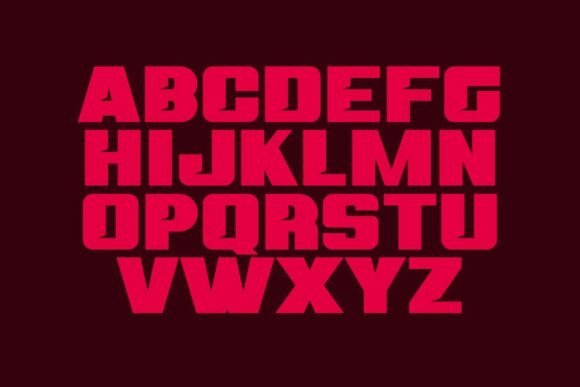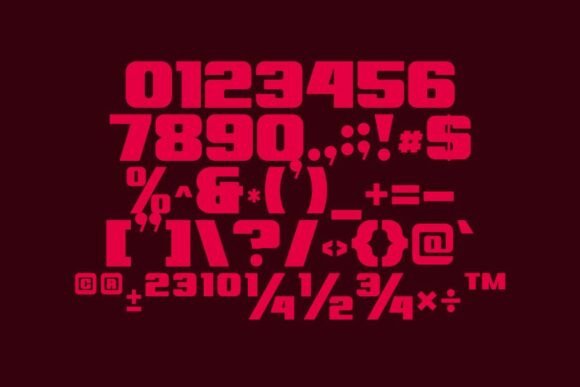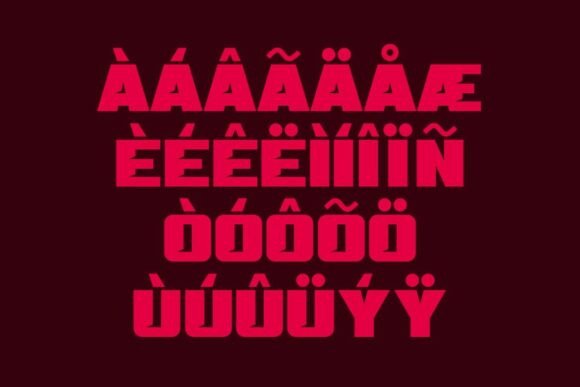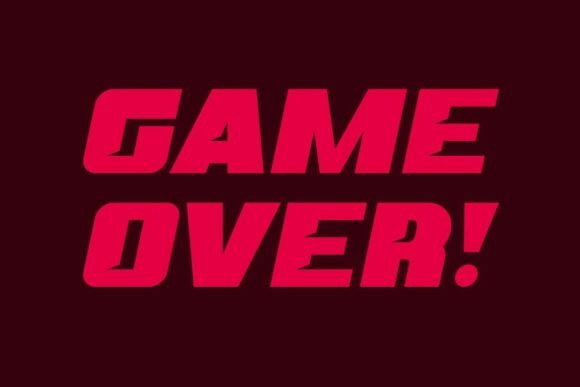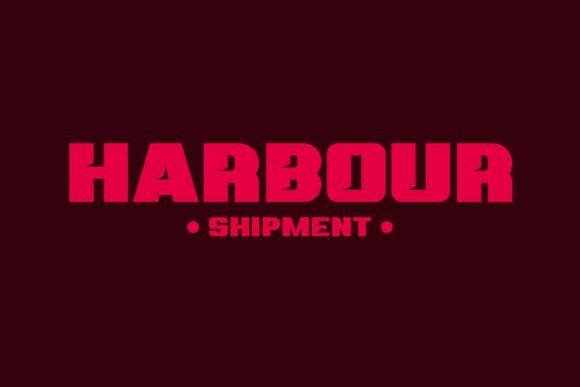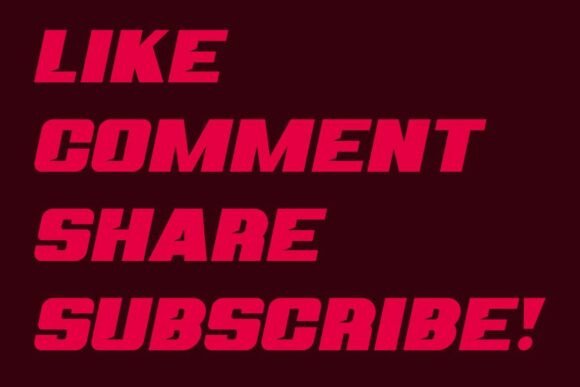
Colethe Font: A Powerful Sans Serif for Bold Visual Statements
In the world of typography, fonts play a crucial role in conveying messages, expressing emotions, and creating visual identities. For designers and crafters, selecting the right font can make all the difference in their projects. If you’re looking for a font that exudes confidence, energy, and modernity, look no further than Colethe Font. In this article, we’ll explore the features, benefits, and uses of Colethe, a powerful sans serif font designed to make a bold visual statement.
What is Colethe Font?
Colethe is a sans serif font that boasts thick strokes, sharp edges, and a confident geometric structure. Its unique design makes it perfect for creating logos, headlines, posters, sports graphics, packaging, and modern branding projects. With Colethe, you can add a touch of sophistication and edginess to your designs, setting them apart from the rest.
Key Features of Colethe Font
- Thick Strokes: Colethe’s thick strokes give it a bold and sturdy appearance, making it ideal for headlines, titles, and emphasis.
- Sharp Edges: The font’s sharp edges add a touch of modernity and sleekness, perfect for creating a cutting-edge visual identity.
- Geometric Structure: Colethe’s geometric structure provides a sense of stability and confidence, making it suitable for a wide range of design applications.
- Sans Serif: As a sans serif font, Colethe offers a clean and minimalist look, perfect for designs that require a modern and fresh feel.
Benefits of Using Colethe Font
So, why choose Colethe Font for your design projects? Here are some benefits that make it an excellent choice:
- Impact and Clarity: Colethe delivers impact and clarity, ensuring that your message is conveyed effectively and efficiently.
- Versatility: The font’s geometric structure and sans serif design make it suitable for a wide range of applications, from logos and headlines to posters and packaging.
- Modernity: Colethe’s modern design ensures that your projects look contemporary and fresh, perfect for brands that want to appear cutting-edge.
- Easy to Read: Despite its bold design, Colethe is easy to read, making it perfect for body text and captions.
Use Cases for Colethe Font
Colethe Font is an excellent choice for various design projects, including:
- Logos: Create a bold and memorable logo with Colethe, perfect for brands that want to make a statement.
- Headlines: Use Colethe for headlines, titles, and emphasis to add a touch of confidence and energy to your designs.
- Posters: Colethe is perfect for posters, flyers, and brochures, adding a modern and fresh feel to your marketing materials.
- Sports Graphics: The font’s bold design makes it ideal for sports graphics, such as jerseys, stadium signage, and sports equipment.
- Packaging: Colethe can add a touch of sophistication and modernity to your packaging designs, making your products stand out on store shelves.
- Modern Branding: Use Colethe to create a cohesive brand identity that exudes confidence, energy, and modernity.
In conclusion, Colethe Font is a powerful sans serif font designed to make a bold visual statement. With its thick strokes, sharp edges, and confident geometric structure, Colethe delivers impact and clarity, making it perfect for a wide range of design applications. Whether you’re a designer or crafter, Colethe is an excellent choice for adding a touch of modernity and sophistication to your projects. So, why settle for ordinary fonts when you can make a bold statement with Colethe?